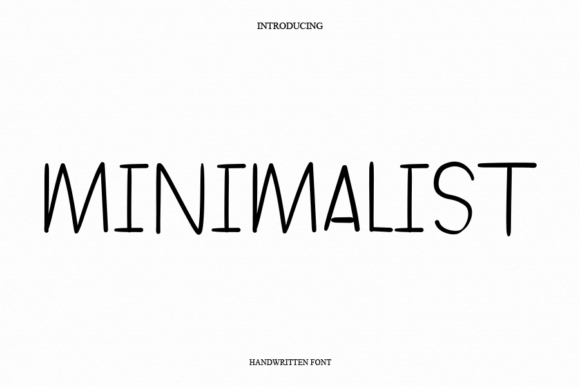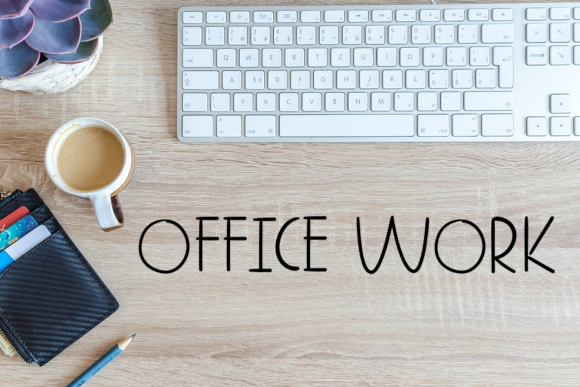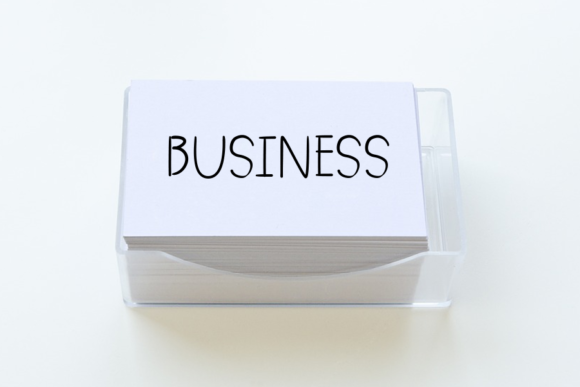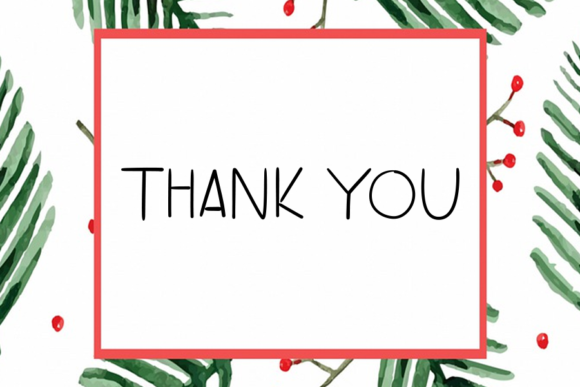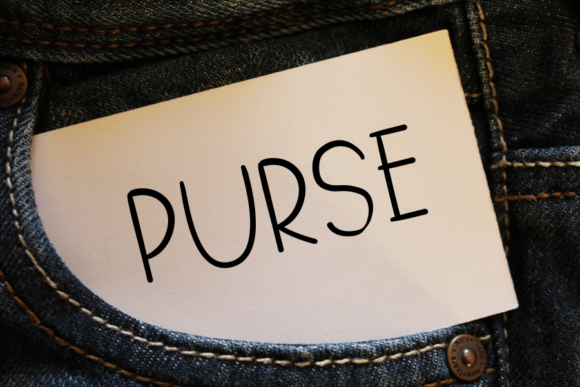
Minimalist Font
About Minimalist Font
Minimalist is a handwritten font that can be used for all chalkboard quotes or teaching material! Its authentic look and feel will add a personal and realistic feel to your designs.